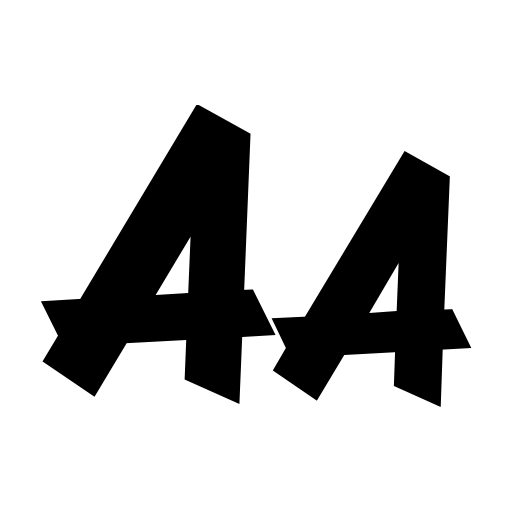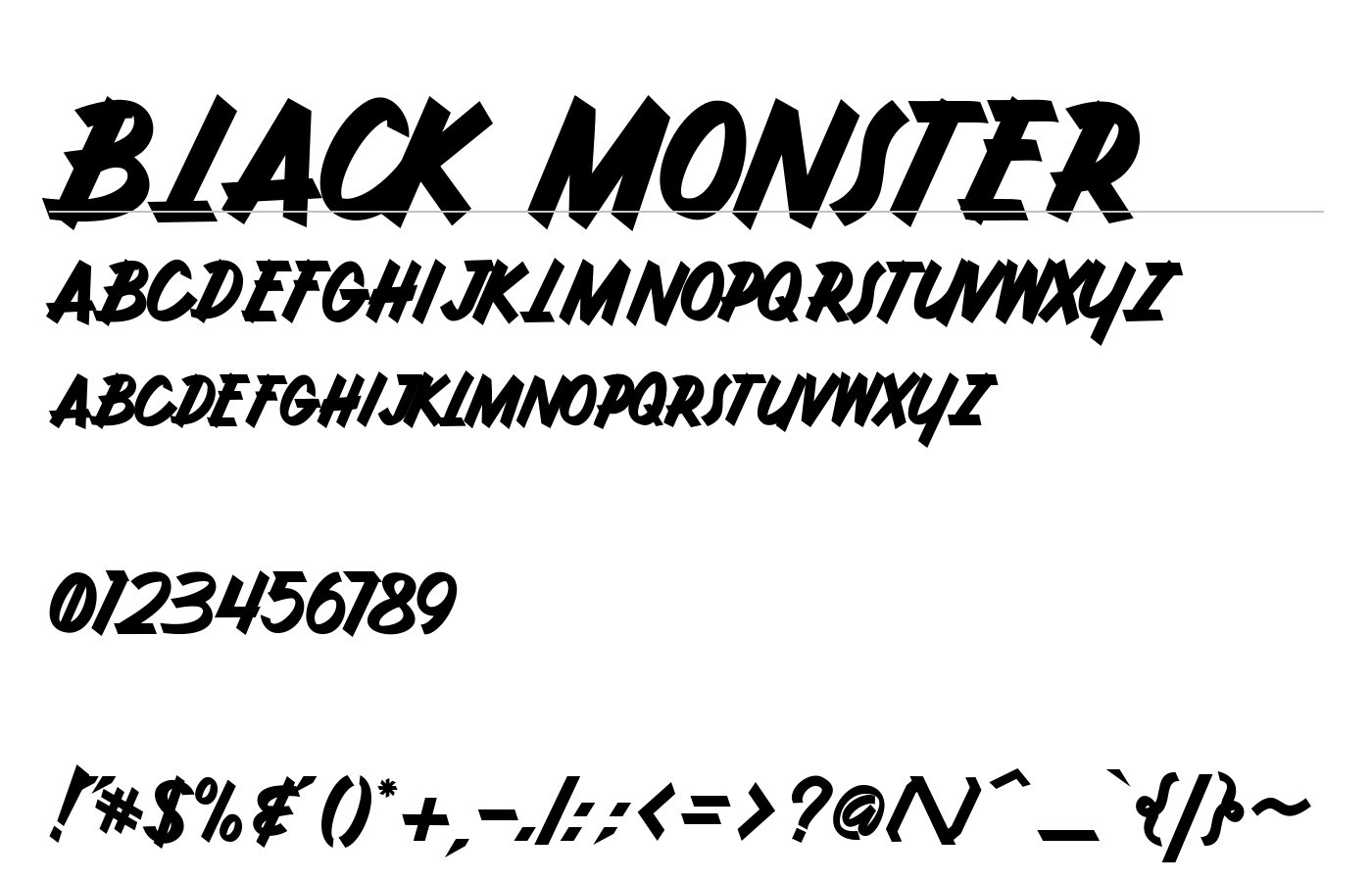
BLACK MONSTER is a bold, condensed sans serif font with a dynamic, edgy style that feels energetic and slightly aggressive. Its sharp, angular strokes and high contrast create a striking, modern look ideal for impactful headlines, logos, and designs that want to convey power and excitement. This font works best in branding and advertising where a strong, memorable visual statement is needed.
About BLACK MONSTER Font